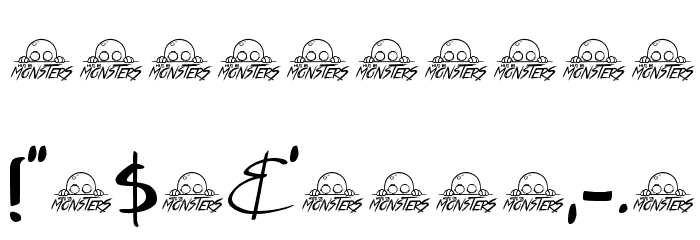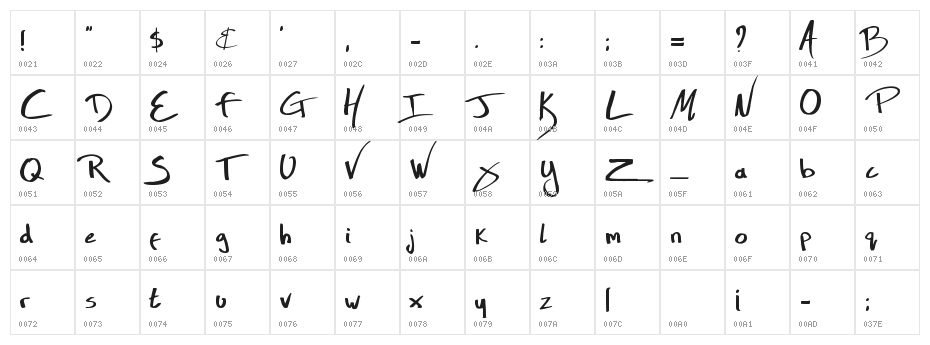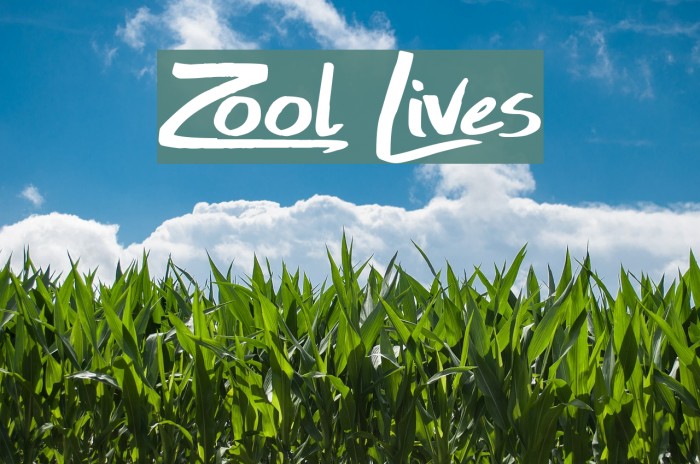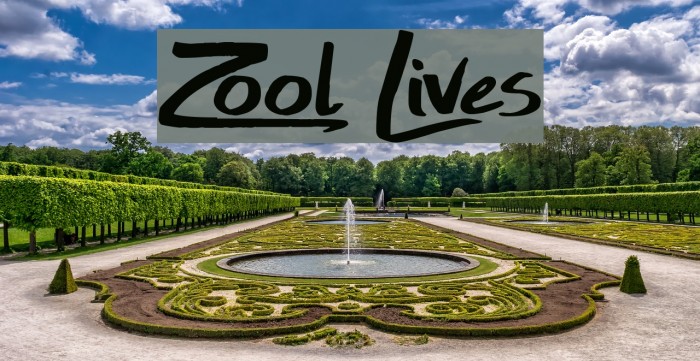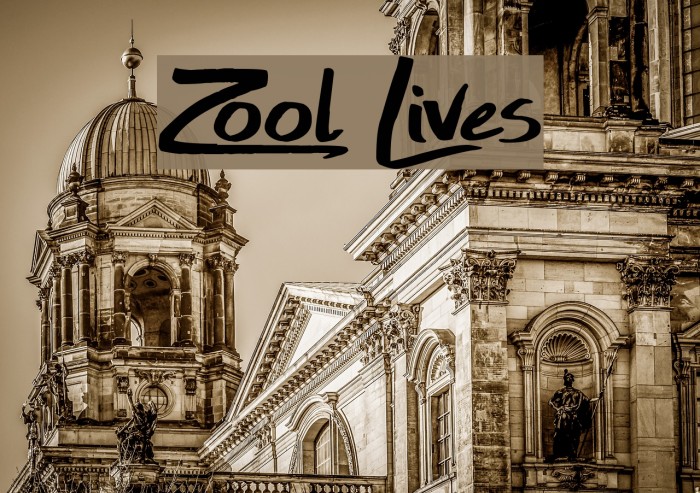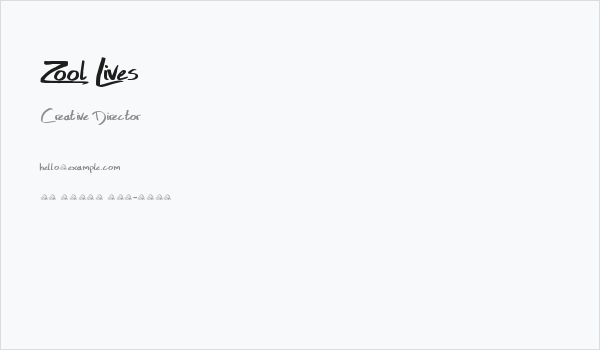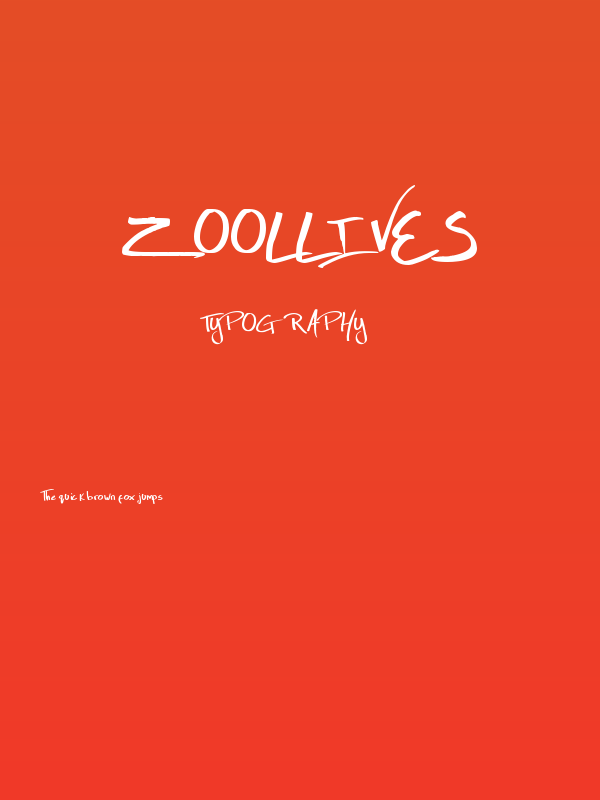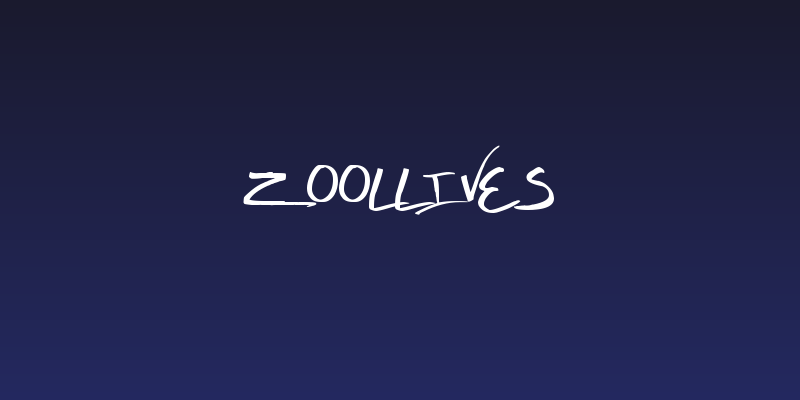
Zool Lives Font
This font exudes a playful and energetic vibe, characterized by its handwritten style that mimics the fluidity of casual script. The uppercase letters are bold and dynamic, with varying stroke widths that add a sense of movement and spontaneity. The lowercase letters maintain this lively aesthetic, offering a slightly more compact form that complements the uppercase set. The numbers and special characters are consistent with the overall style, ensuring a cohesive look across different text elements. This font's unique personality makes it ideal for projects that require a touch of creativity and informality.
| Overall Style | Playful, Energetic |
| Proposed Projects | Ideal for creative projects such as children's books, playful branding, event invitations, and artistic posters. |